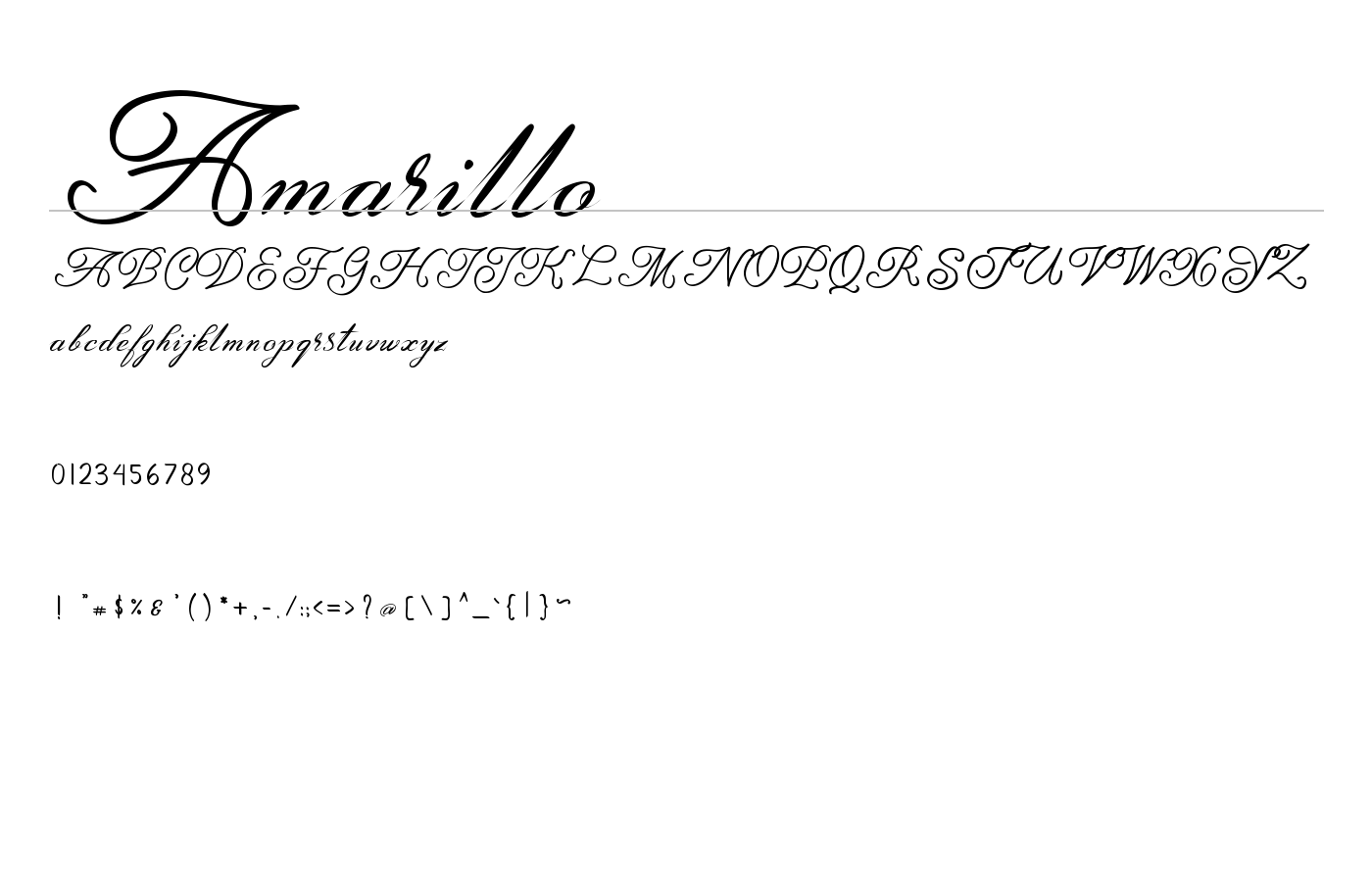
Amarillo is an elegant script font with a refined, calligraphic style that features smooth, flowing strokes and high contrast between thin and thick lines. Its classic design exudes sophistication and grace, making it perfect for luxury branding, wedding invitations, and stylish editorial projects where a touch of timeless beauty is desired. This font works best in headers or decorative uses due to its delicate details and ornate letterforms.
Amarillo Font
About Amarillo Font